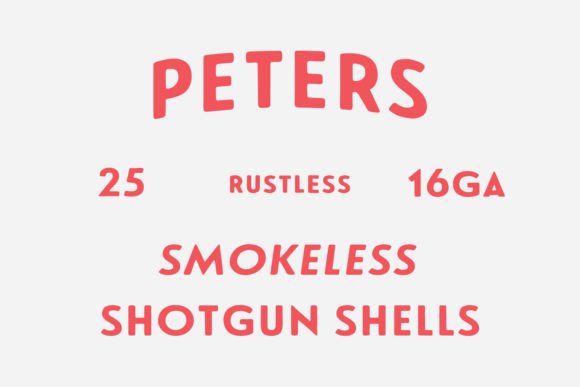
Monndy Stamp Display Font Font
Monndy is a rough stamp-style sans serif font. Take your designs to the next level with this captivating font! Use it to create unique t-shirt designs, posters, wall art, flyers, branding materials, and more!